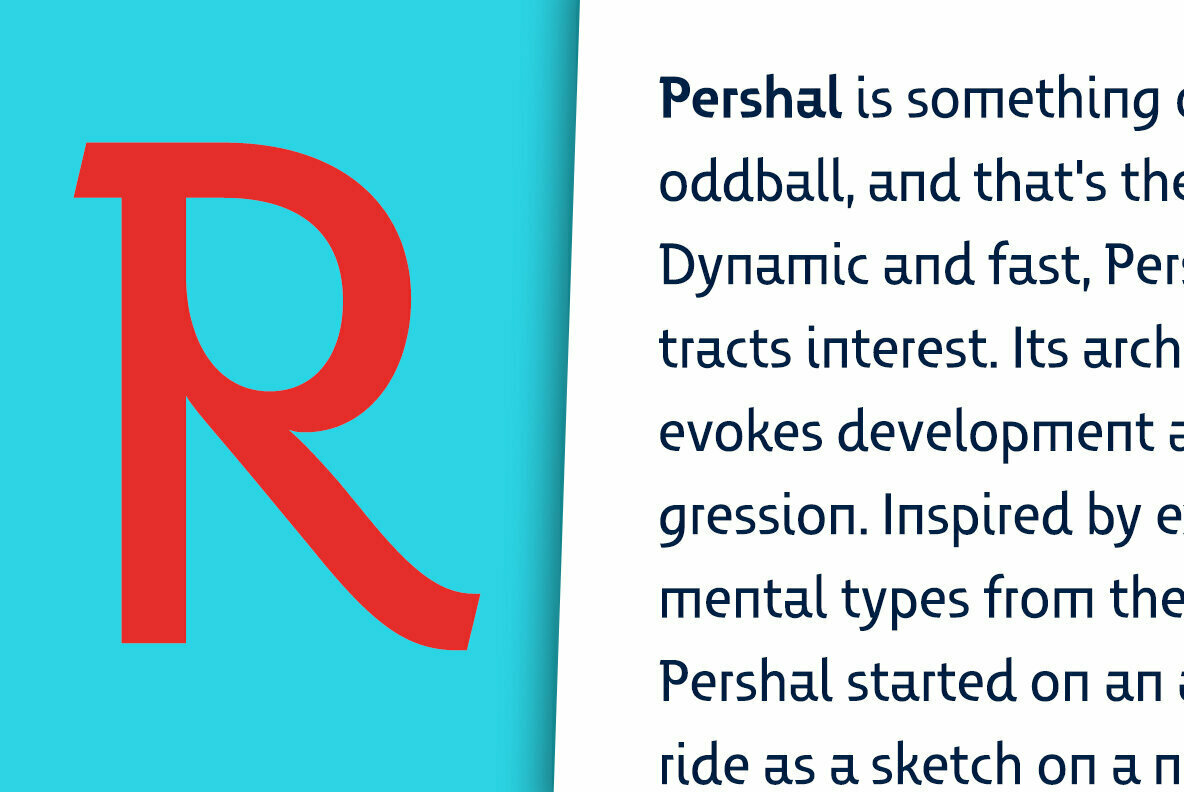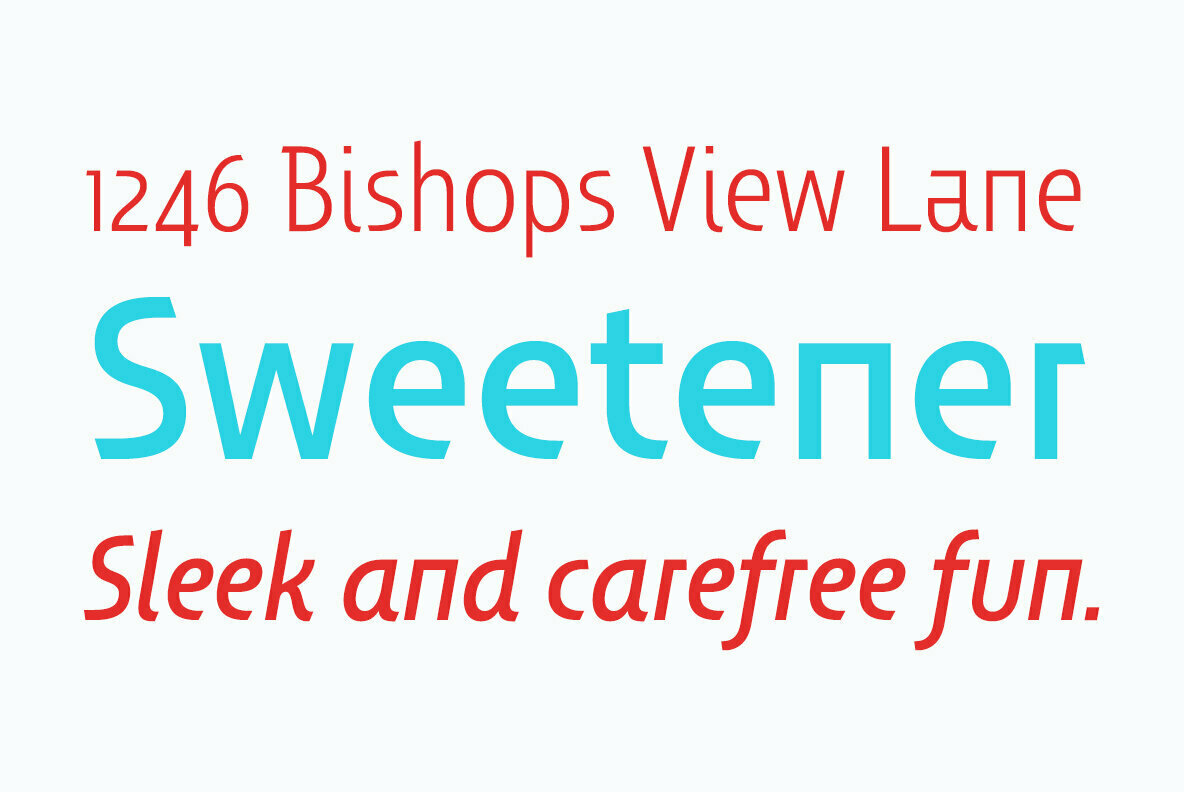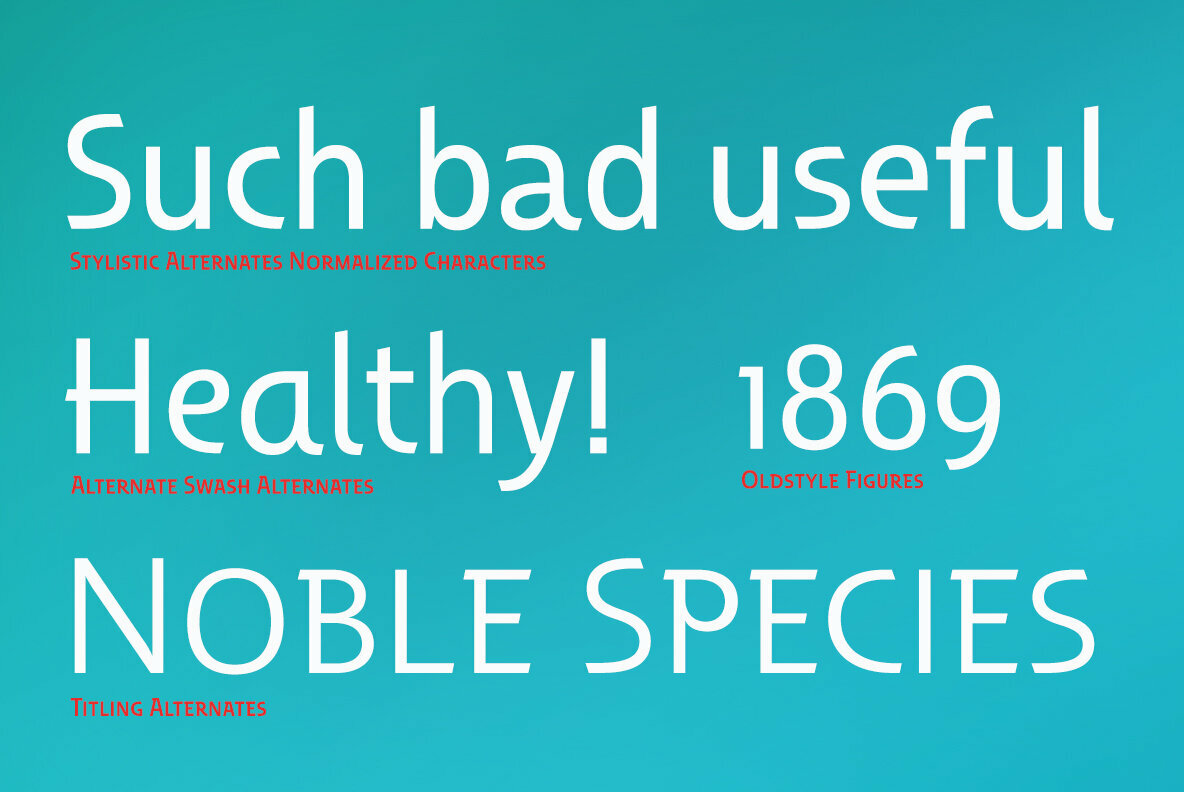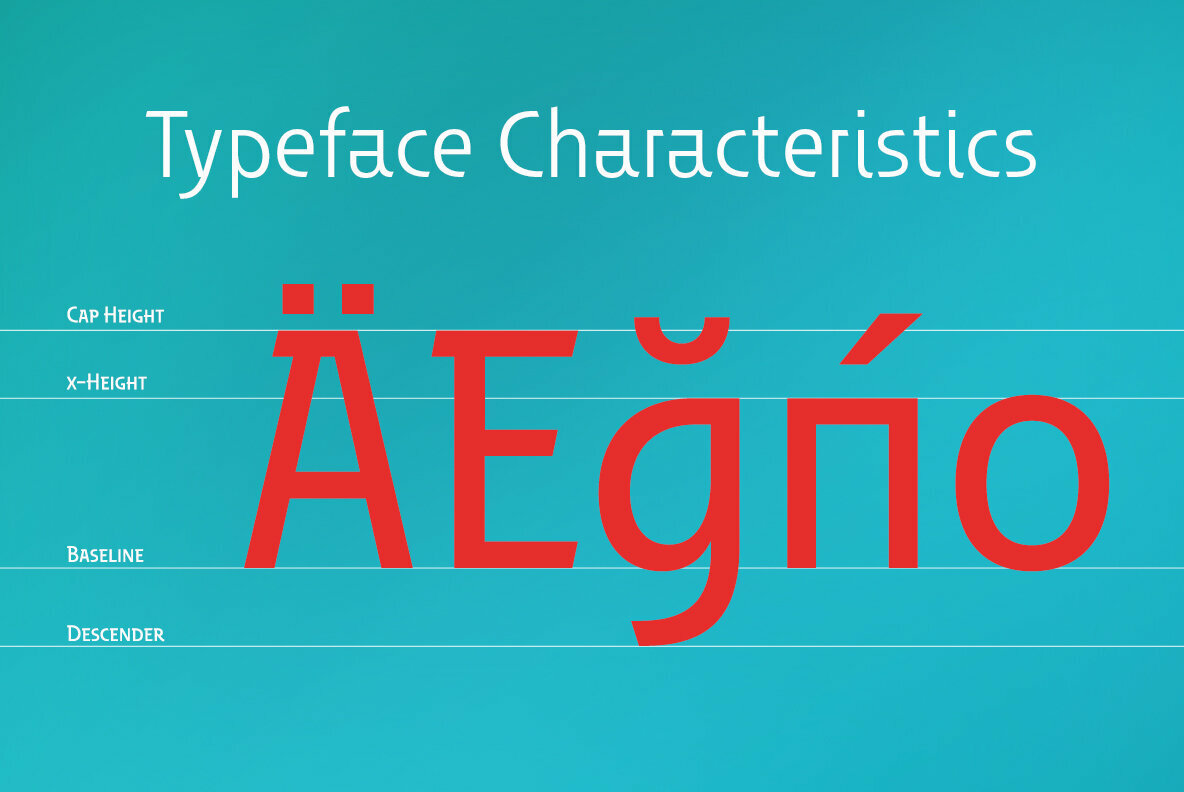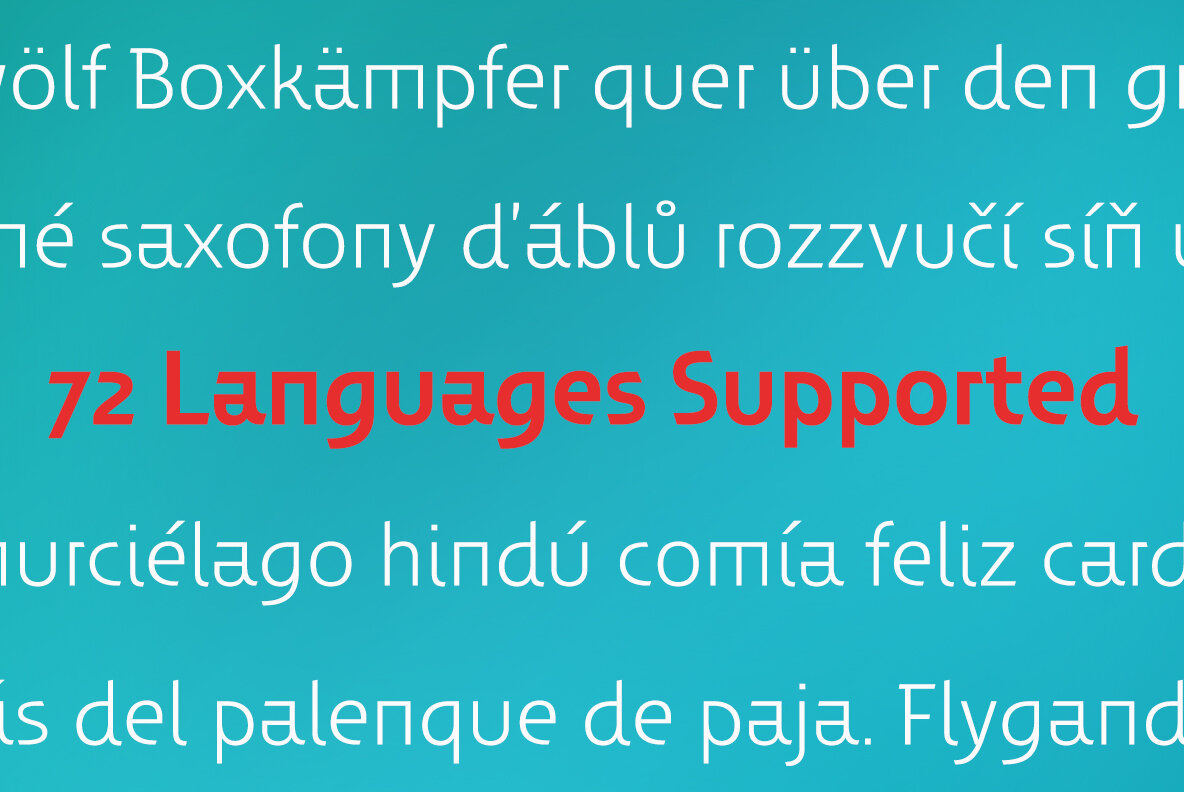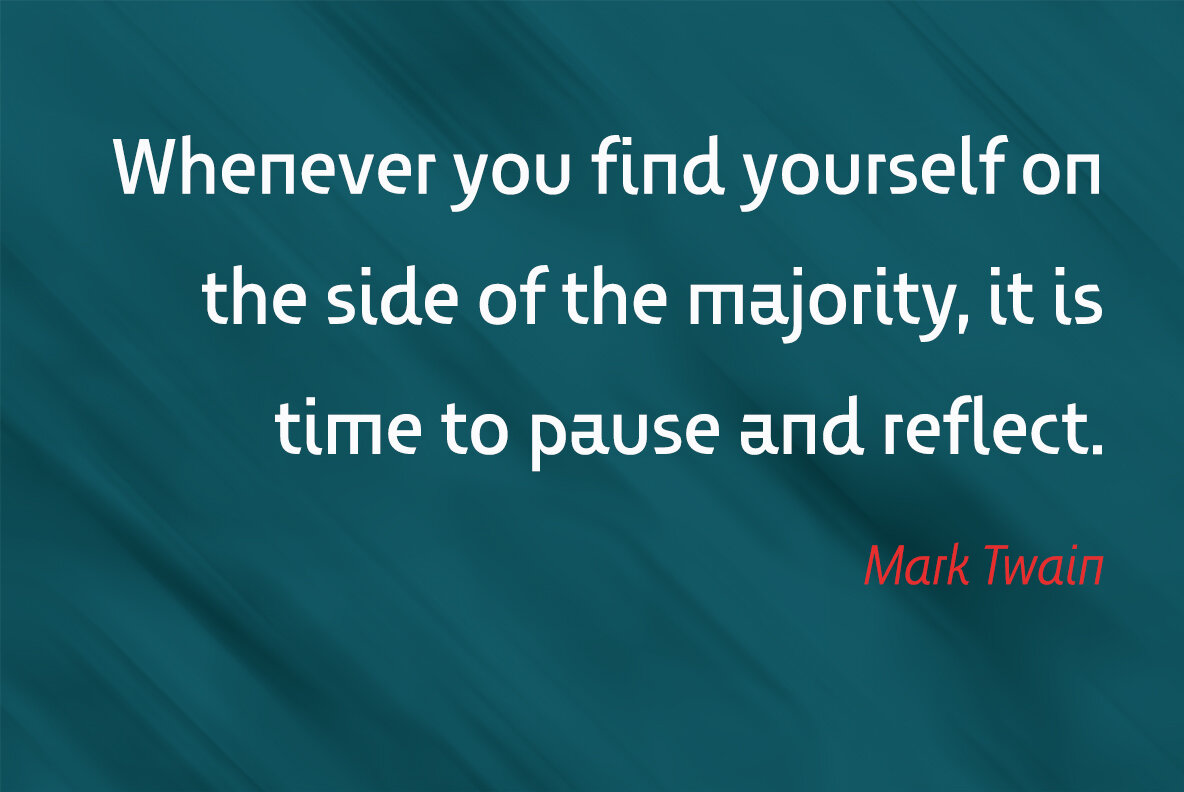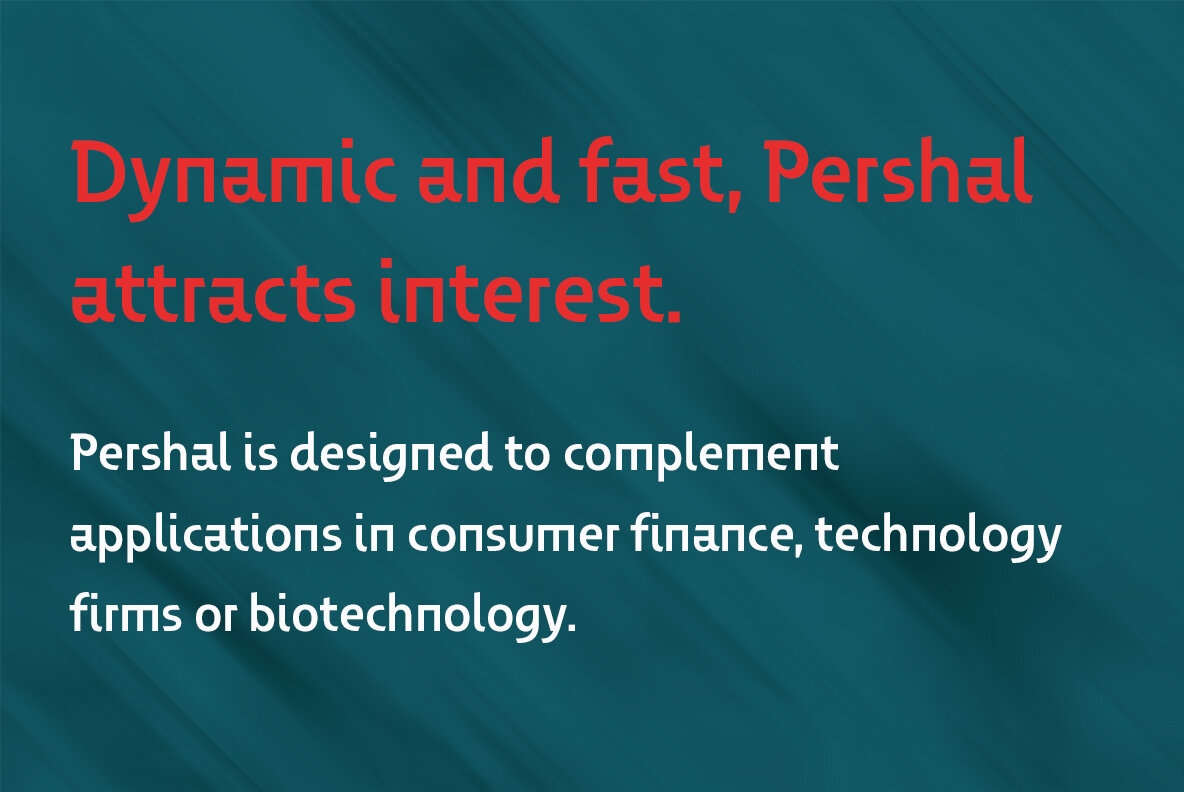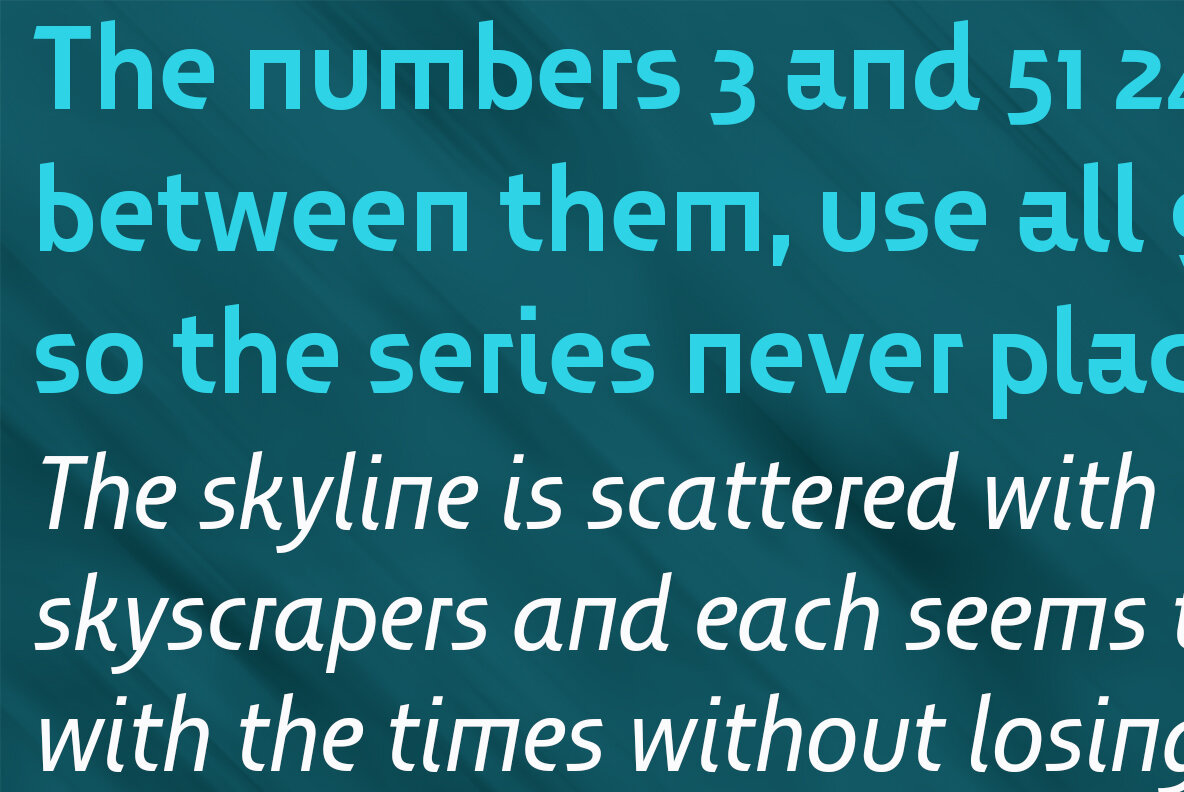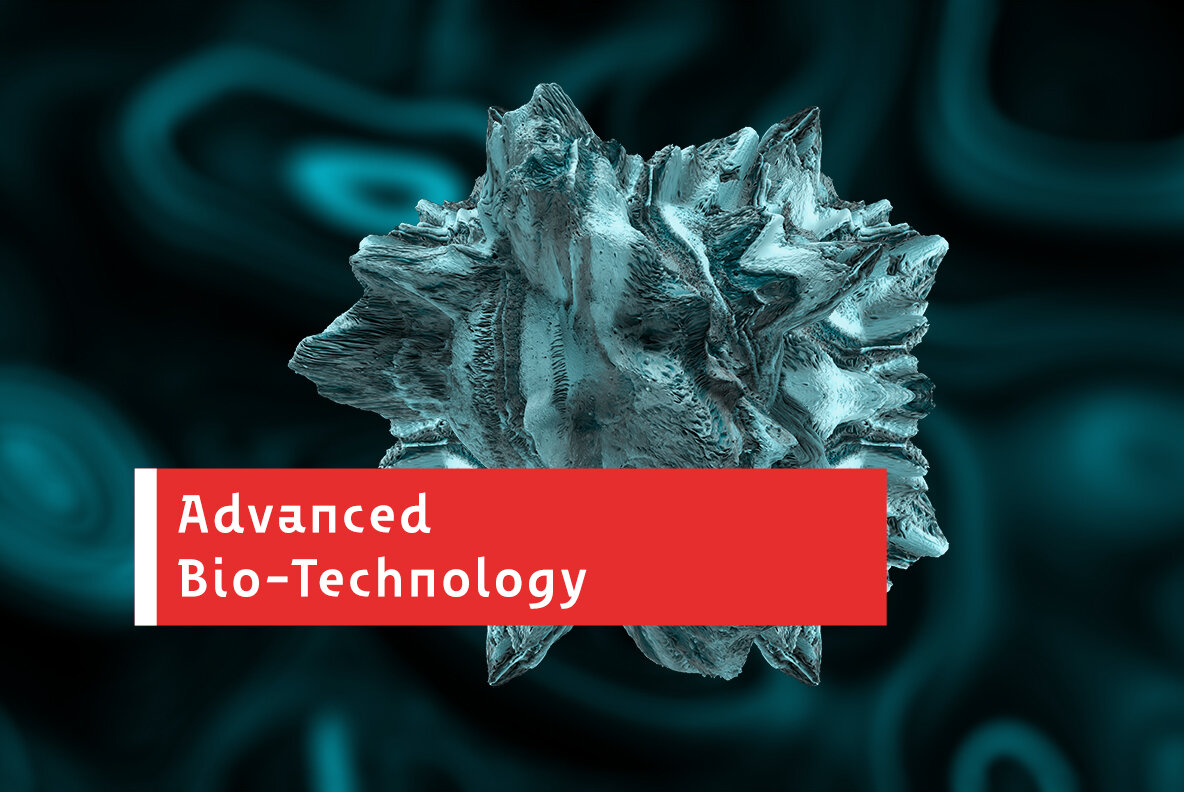
Pershal Font
Pershal is something of an oddball, and that's the point. Dynamic and fast, Pershal attracts interest. Its architecture evokes growth and progress. Inspired by the futuristic styles of the 1990s, Pershal started on an aircraft ride as a sketch on a napkin. I set the concept aside for almost a decade before I went back to play with the typeface.
Pershal is planned to complement applications in consumer finance, technology firms or biotechnology. As such, it has a complete set of both tabular and proportional figures.
For the lowercase, Pershal features a distinctive shape that emphasizes its x-height. Its horizontal movement is highlighted by some of its other features, such as its crossbars. To emphasize growth, acceleration and inventiveness, crossbars and other elements are cut at a dynamic angle. It's a sans serif without a lot of contrast.
Another unique feature of this typeface is the vast number of OpenType alternates. If you prefer a more conventional appearance to your sans, with stylistic alternates, you have that option. Altogether, there are more than seven separate sets of stylistic alternates and about 250 alternates for characters. This enables you to mix-and-match and create your own personal typeface. For branding, this makes it very useful.
For your next project that requires a dynamic and technological appearance, give Pershal a shot.